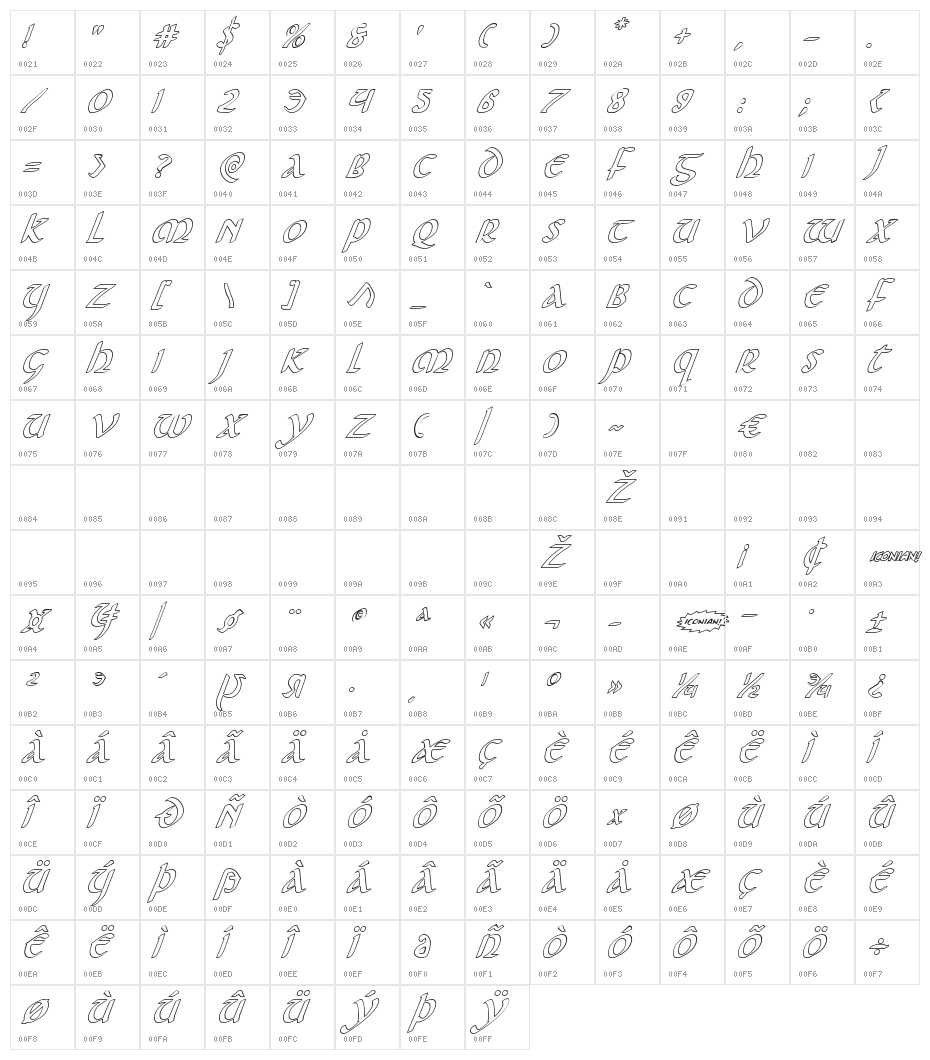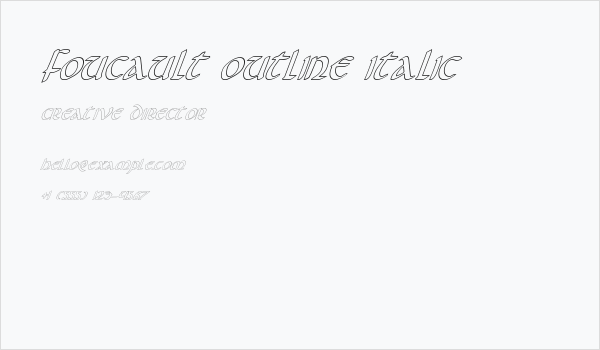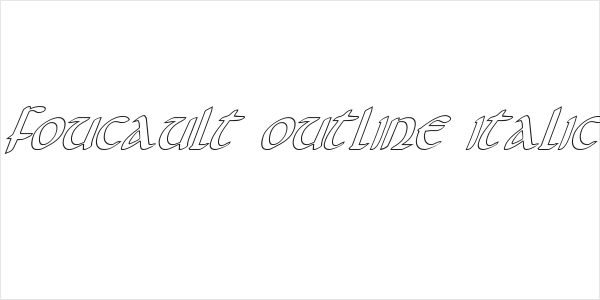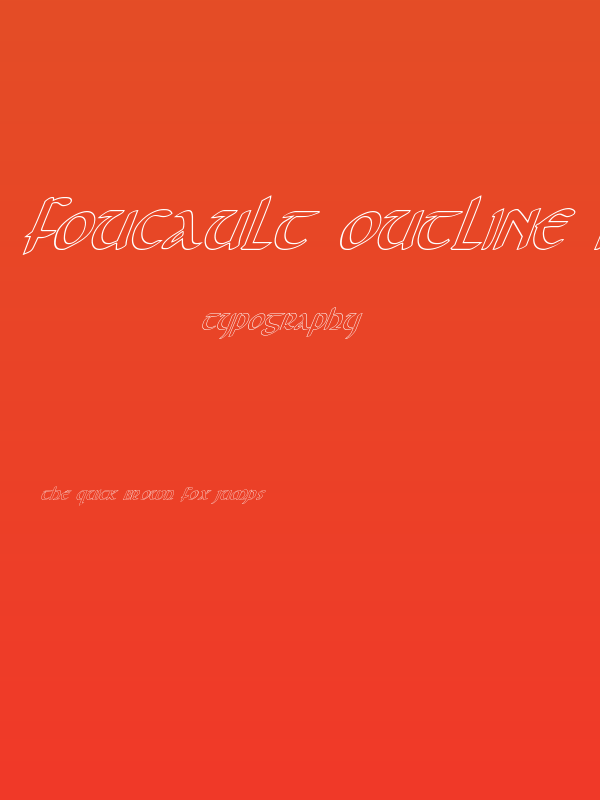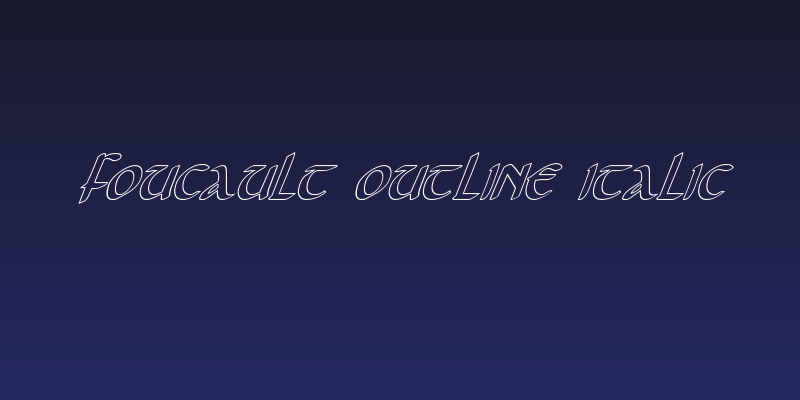
Foucault Outline Italic Font
Foucault Outline Italic Description
This font features a distinct outline style with an italic slant, giving it a dynamic and fluid appearance. The characters are elegantly crafted with sharp, angular edges and smooth curves, creating a sense of movement and sophistication. The uppercase and lowercase letters maintain a consistent style, while the numerals and special characters complement the overall design. The outline effect adds a layer of depth, making it suitable for eye-catching designs. Its unique style makes it ideal for creative projects that require a touch of elegance and flair.